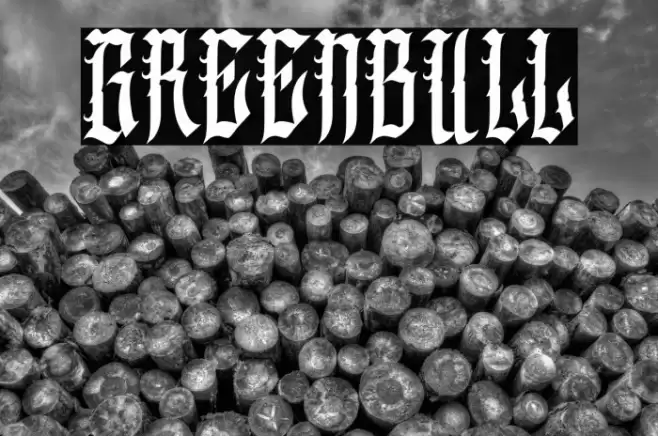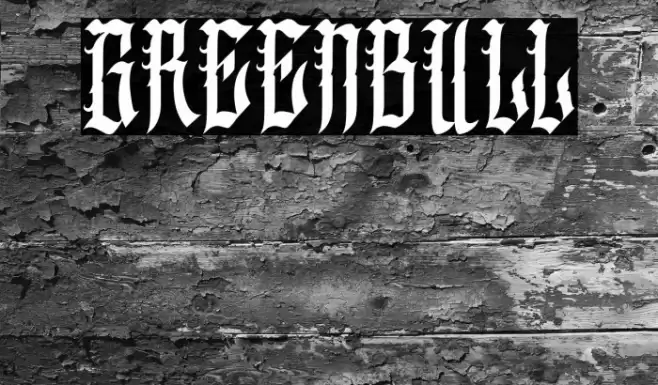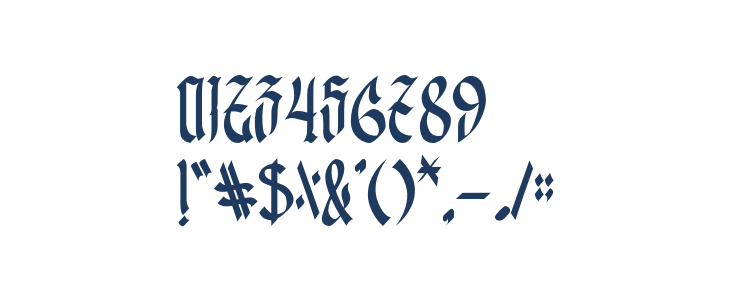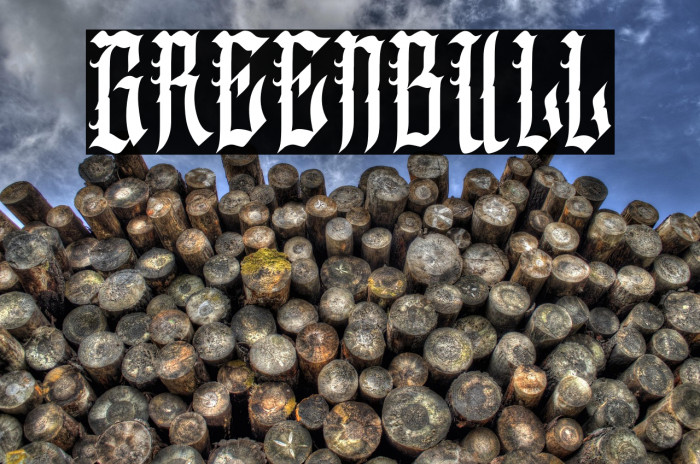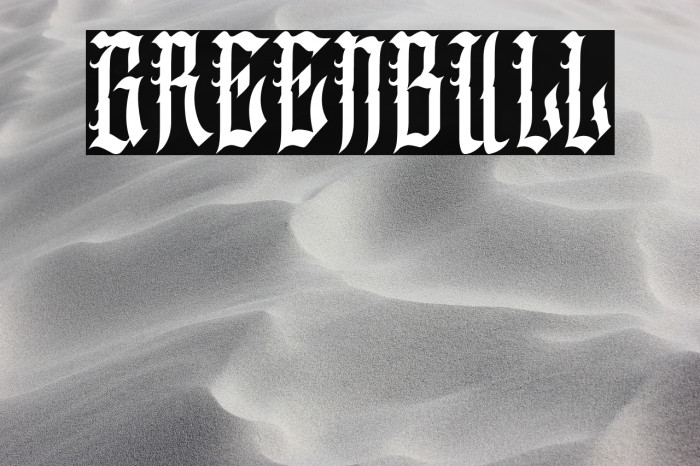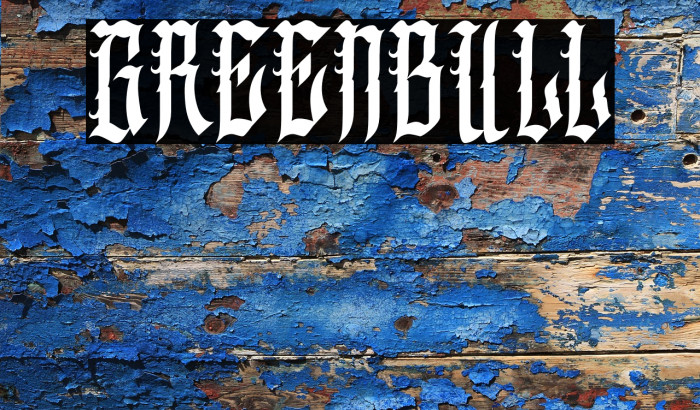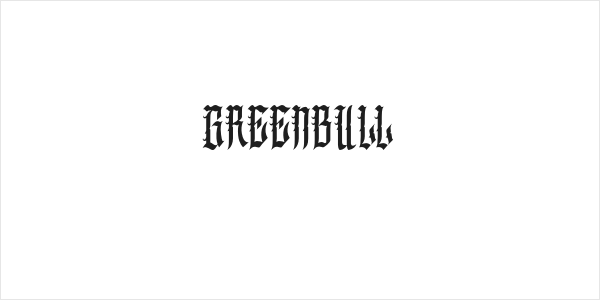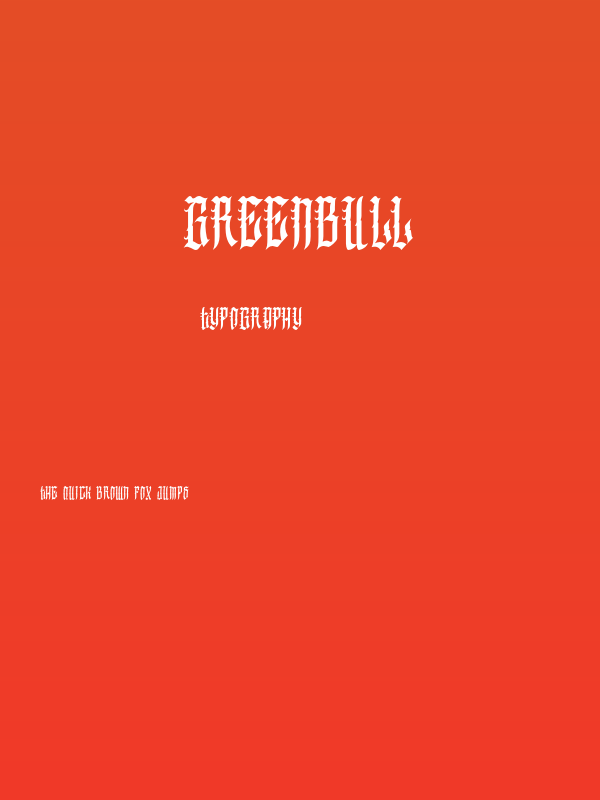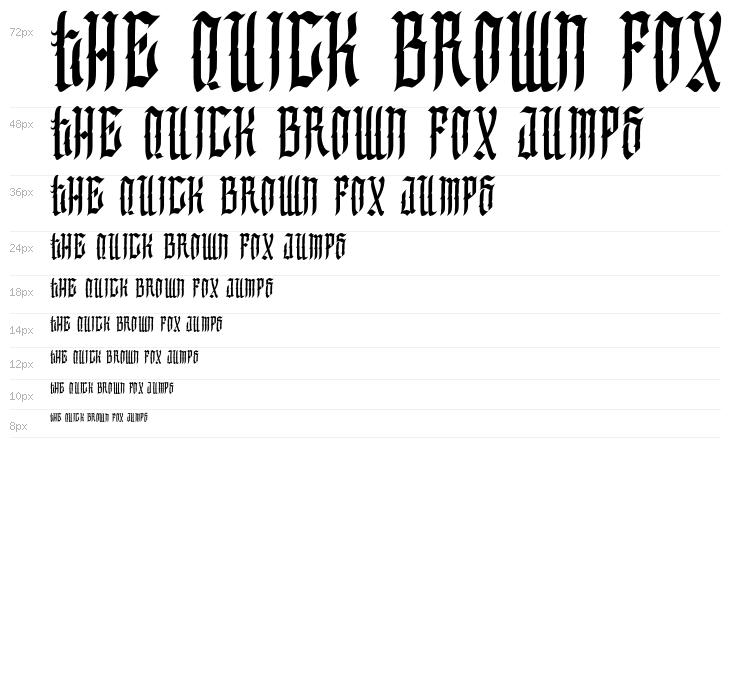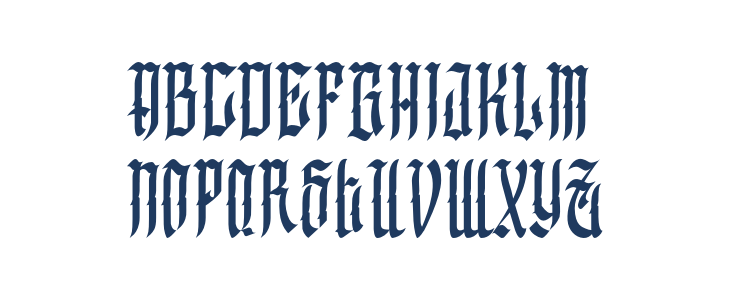
GREENBULL Font
GREENBULL Description
This font is a striking example of Blackletter typography, characterized by its intricate and ornate design. The letters are bold and angular, with sharp, pointed serifs and a dramatic contrast between thick and thin strokes. The uppercase and lowercase letters maintain a consistent style, with a medieval and gothic aesthetic that is both decorative and highly stylized. The numbers and special characters are equally elaborate, featuring unique flourishes that enhance the overall visual impact. This font is perfect for projects that require a historical or traditional touch, such as invitations, certificates, or branding that seeks to evoke a sense of heritage and craftsmanship.
A bold, ornate Blackletter font with sharp serifs and high contrast, ideal for historical or decorative projects from Regular fonts.
- Proposed Projects: Perfect for wedding invitations, certificates, branding with a vintage touch, or any project requiring a historical aesthetic.
- Overall Style: Vintage
- Use Case: Headlines, Logos, Decorative text